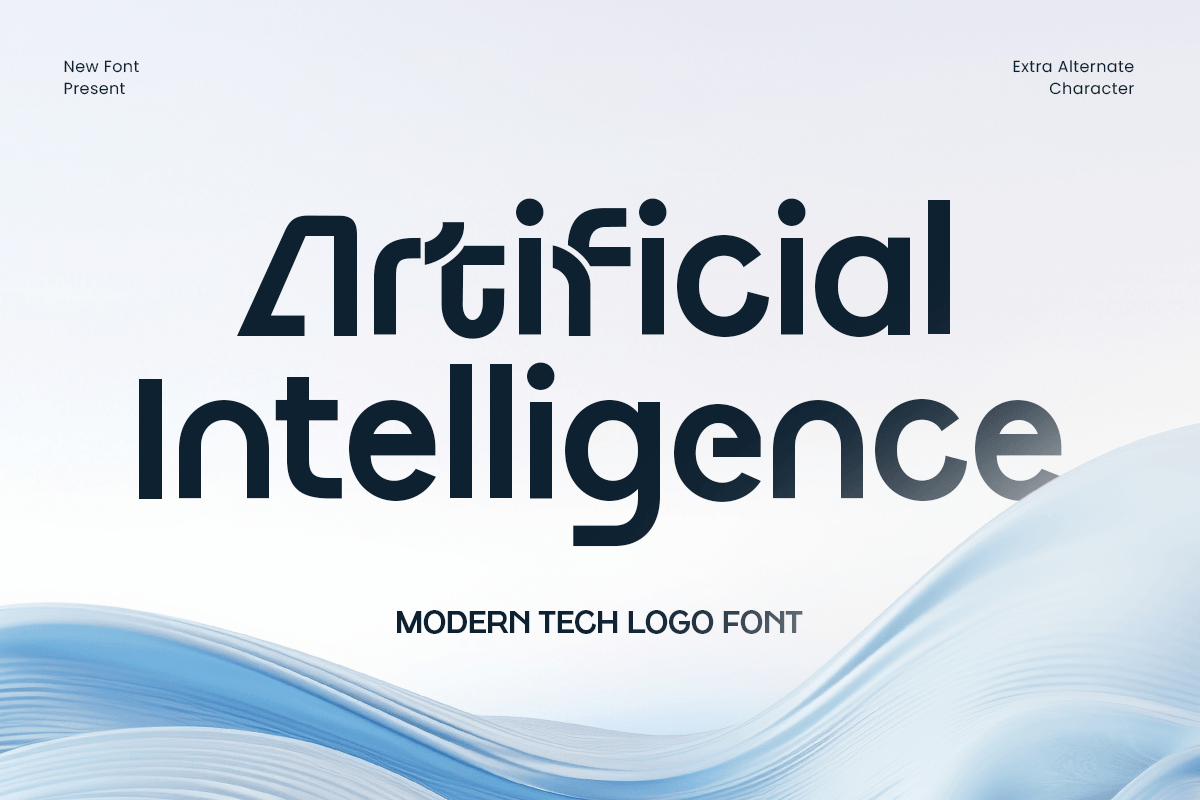
Artificial Intelligence
-Modern Techno Logo Font
Artificial Intelligence - Modern Techno Logo Font
Artificial Intelligence is a modern techno logo font designed to represent innovation, precision, and forward-thinking design. With clean geometric structures and a sharp futuristic feel, this font delivers a strong technological identity that feels confident, intelligent, and contemporary.
Crafted for logos, brand identities, digital platforms, startups, and technology-driven visuals, Artificial Intelligence works seamlessly across web, app interfaces, posters, headlines, and futuristic branding systems. Its balanced proportions and modern construction ensure clarity while maintaining a bold, high-tech personality.
Perfect for AI brands, software companies, fintech projects, esports teams, and digital products, this font helps designers communicate innovation and professionalism with a cutting-edge visual tone.
Artificial Intelligence – Modern Techno Logo Font Features
• Modern techno-inspired letterforms
• Available with Regular and Italic Version
• Clean geometric design with futuristic character
• Ideal for logos, branding, UI/UX, and digital products
• Strong readability for digital and print use
• OpenType features for creative flexibility